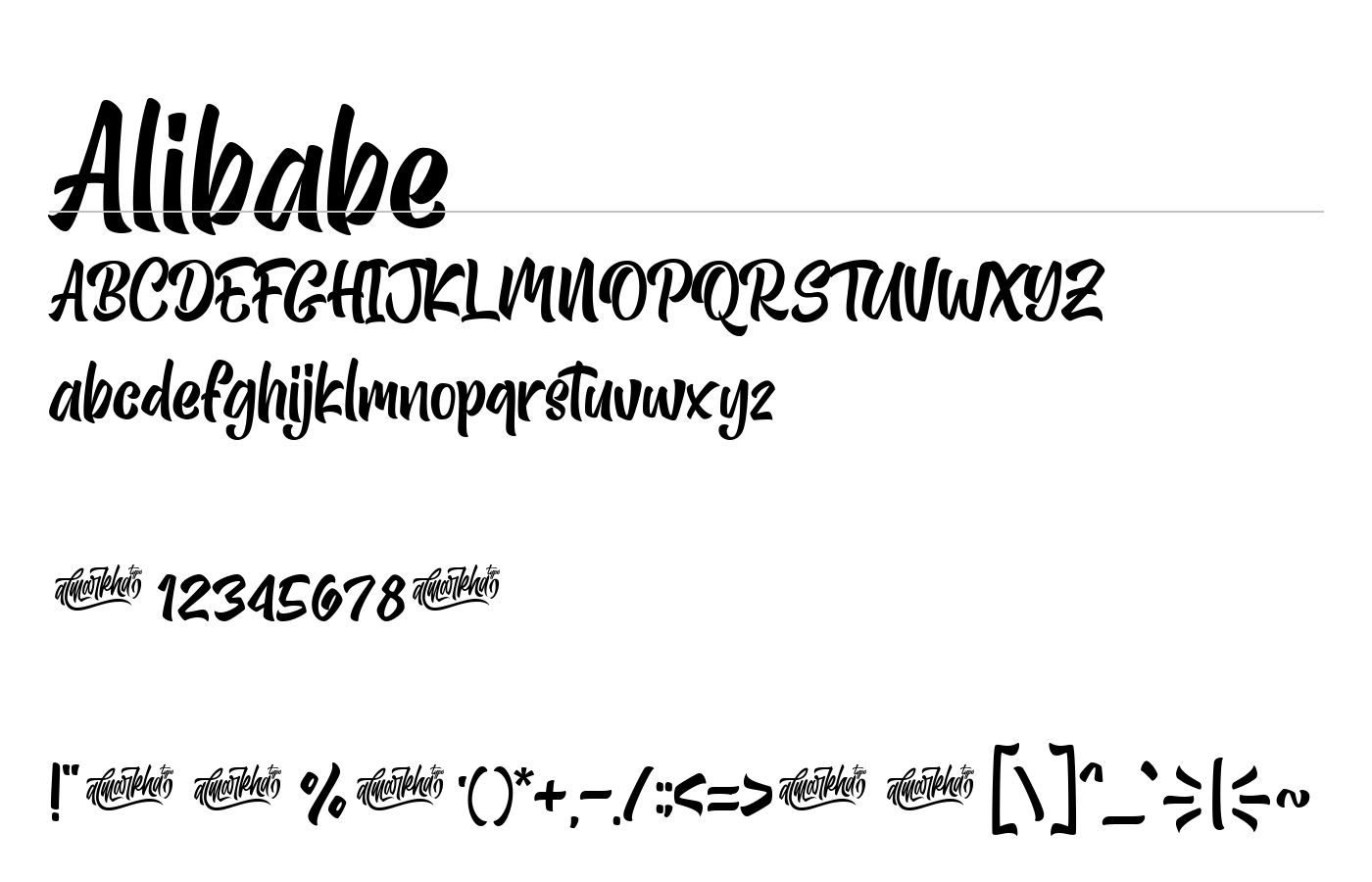
Alibabe is a lively script font with a bold weight and playful character, featuring smooth, rounded strokes and a casual handwritten style. Its energetic curves and slightly condensed letterforms make it perfect for creative projects, logos, and headlines that need a friendly, approachable vibe. This font works well in branding and designs that want to convey warmth and personality with a modern, stylish flair.
Alibabe Font
About Alibabe Font
| Designer | Almarkhatype 2020 - Abdul Malik -Ghazi |